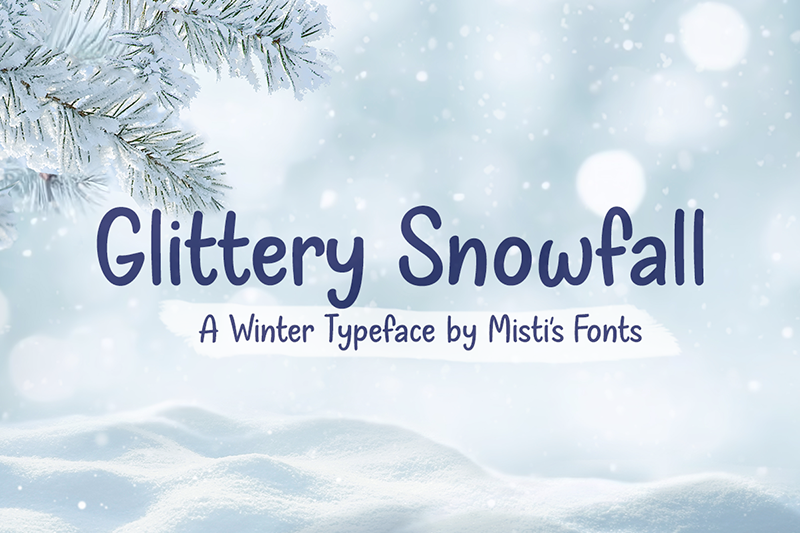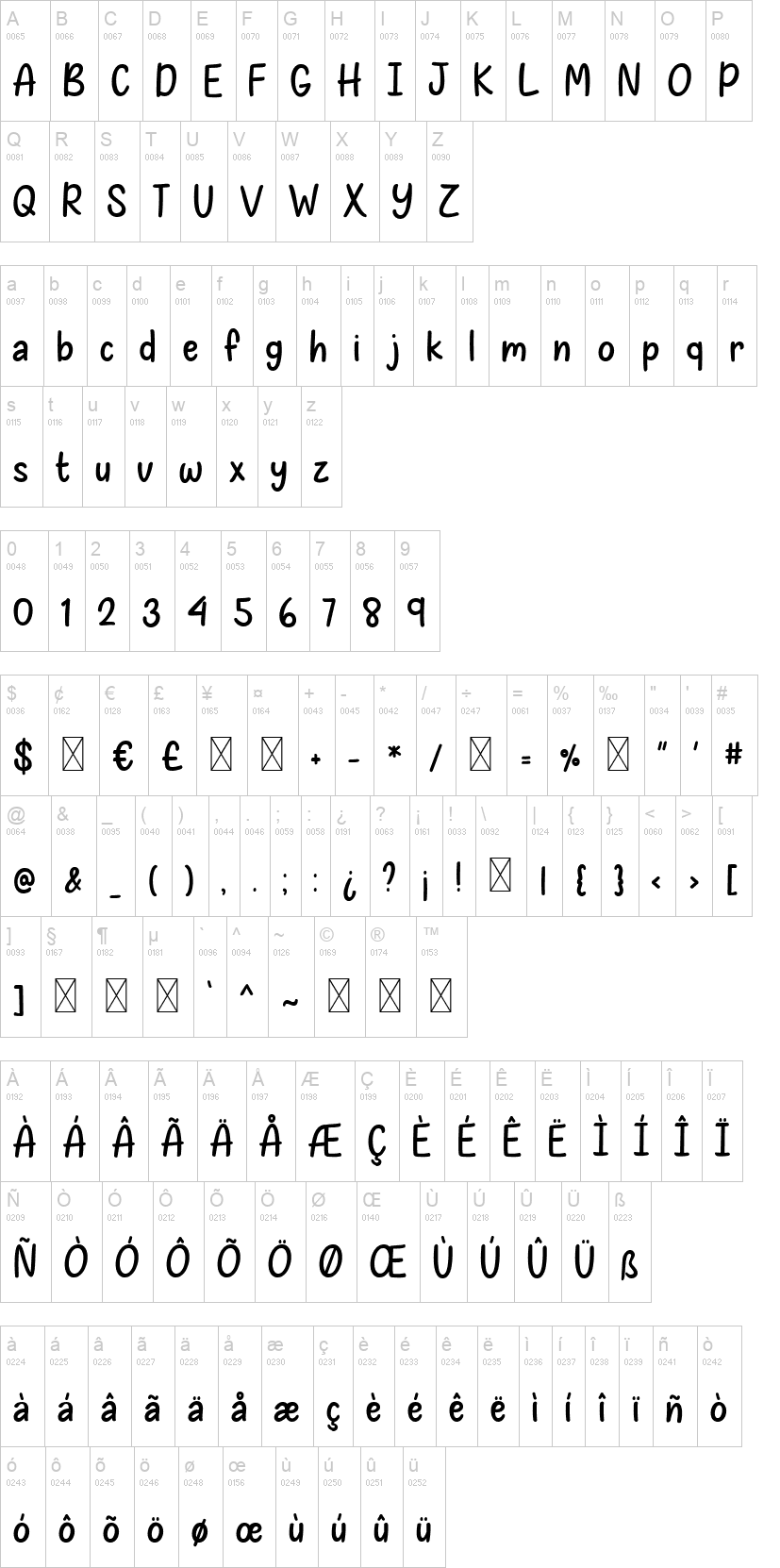
Note of the authorGlittery Snowfall is a charming and whimsical handwritten font perfect for adding a touch of playfulness to your designs. This font is perfect for those who want a simple yet quirky font that is both easy to read and eye-catching.
The font is designed to be used for a variety of purposes, including branding, social media posts, greeting cards, invitations, and more. The Glittery Snowfall font has a fun and festive feel that is perfect for the holiday season. It is easy to use and can be incorporated into any design with ease.